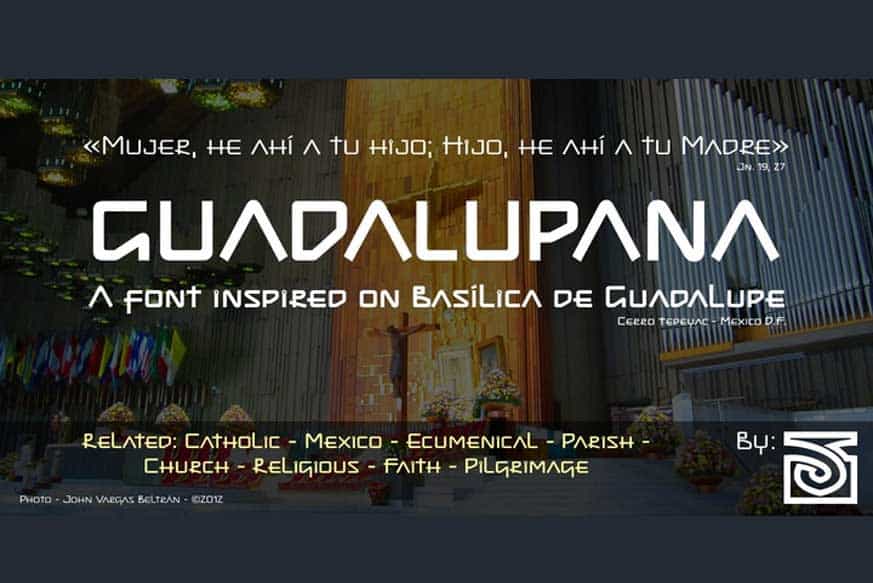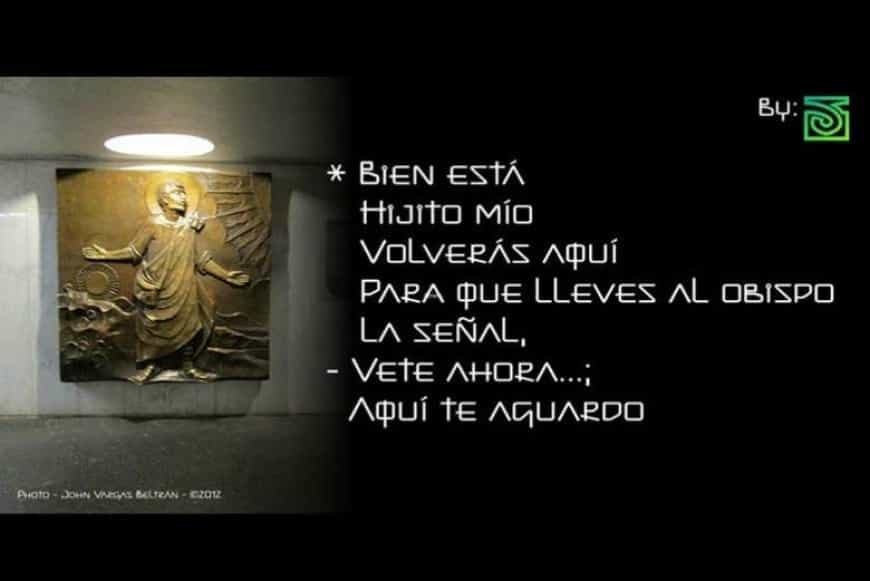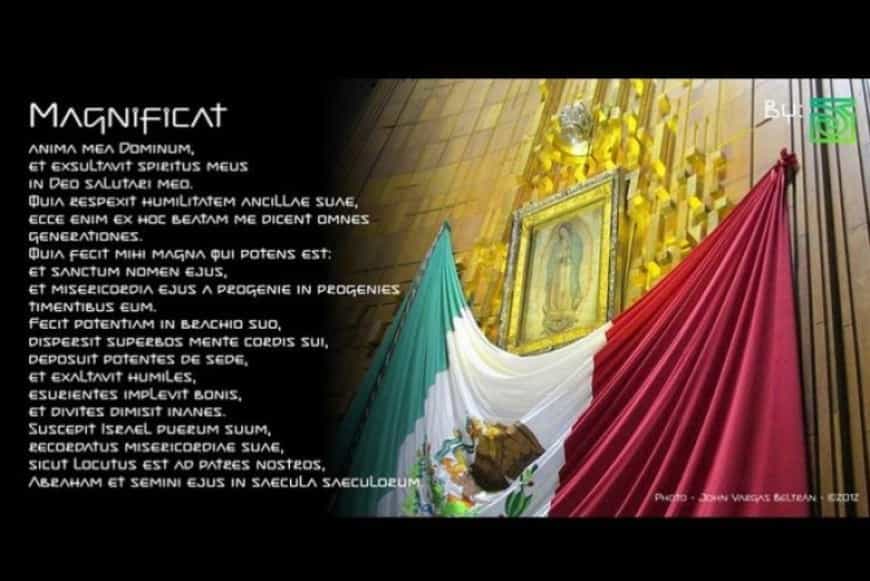
On October 12th, 1976, a new basilica was inaugurated to honor and thank the Patron Saint, the Virgin of Guadalupe, adored by the Mexican people. This basilica was designed by the Mexican architect Pedro Ramírez Vázquez, who passed away April 16th, 2012. In certain way it is meant his soaring, spacious interior, hedonistically plastered with bronze elements.